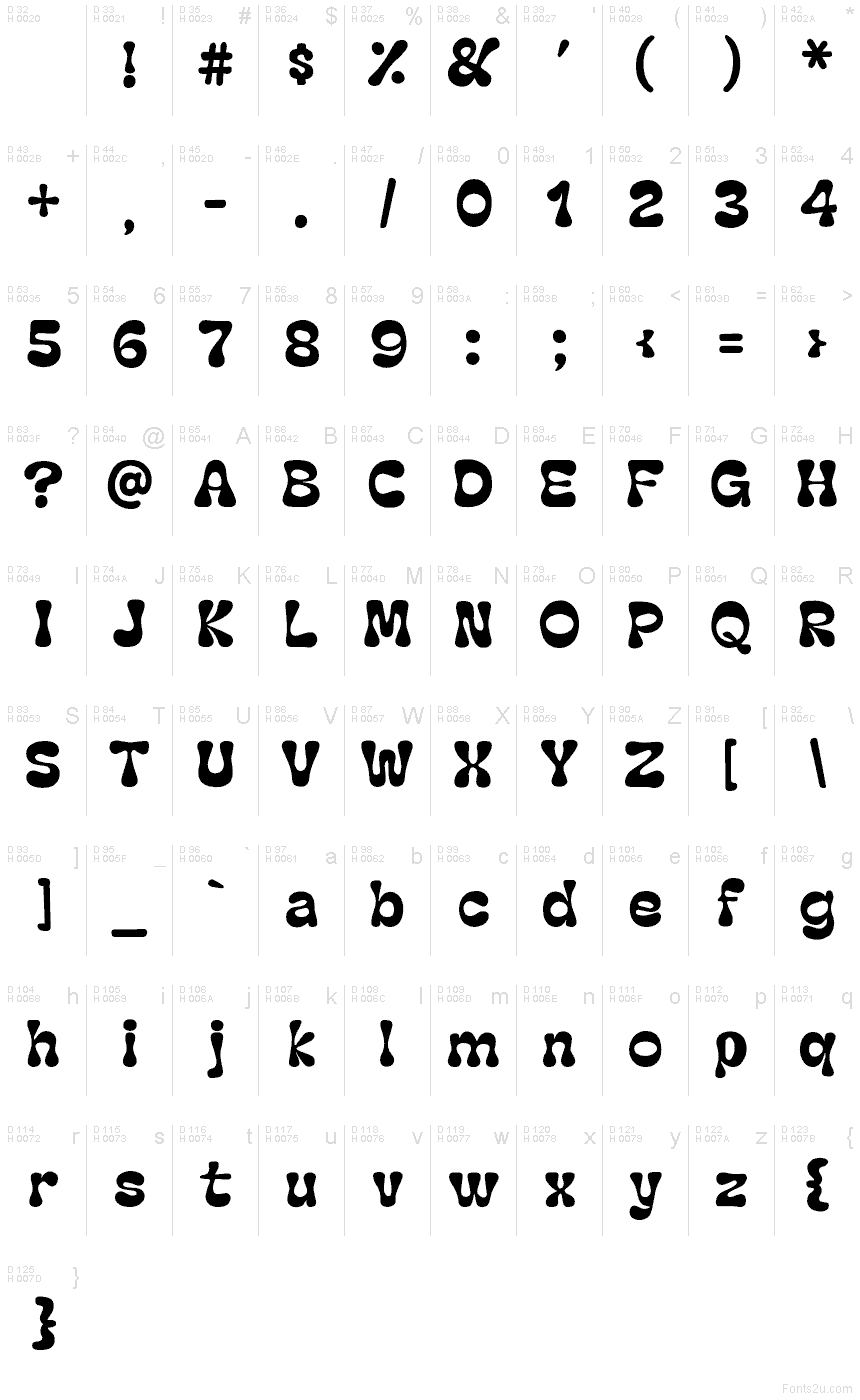
Flower Garden
Flower Garden font by BlackFridayFont FMF is a free groovy display typeface. Its defining trait is that juicy, petal-like swelling on every curve—letters feel bubbly and hand-molded, like ink puddles settling into playful shapes. The rhythm is chunky yet friendly, giving headlines a soft bounce that grabs attention without shouting.
Using Flower Garden, you’ll get instant ’60s sunshine for posters, festival branding, party invitations, kids’ packaging, stickers, and social graphics. The roomy forms read well at large sizes and bring a warm, tactile mood to album covers and banners too. For balance, pair this free font with a light, unobtrusive sans-serif and keep tracking slightly tight to preserve its plush, cohesive flow.